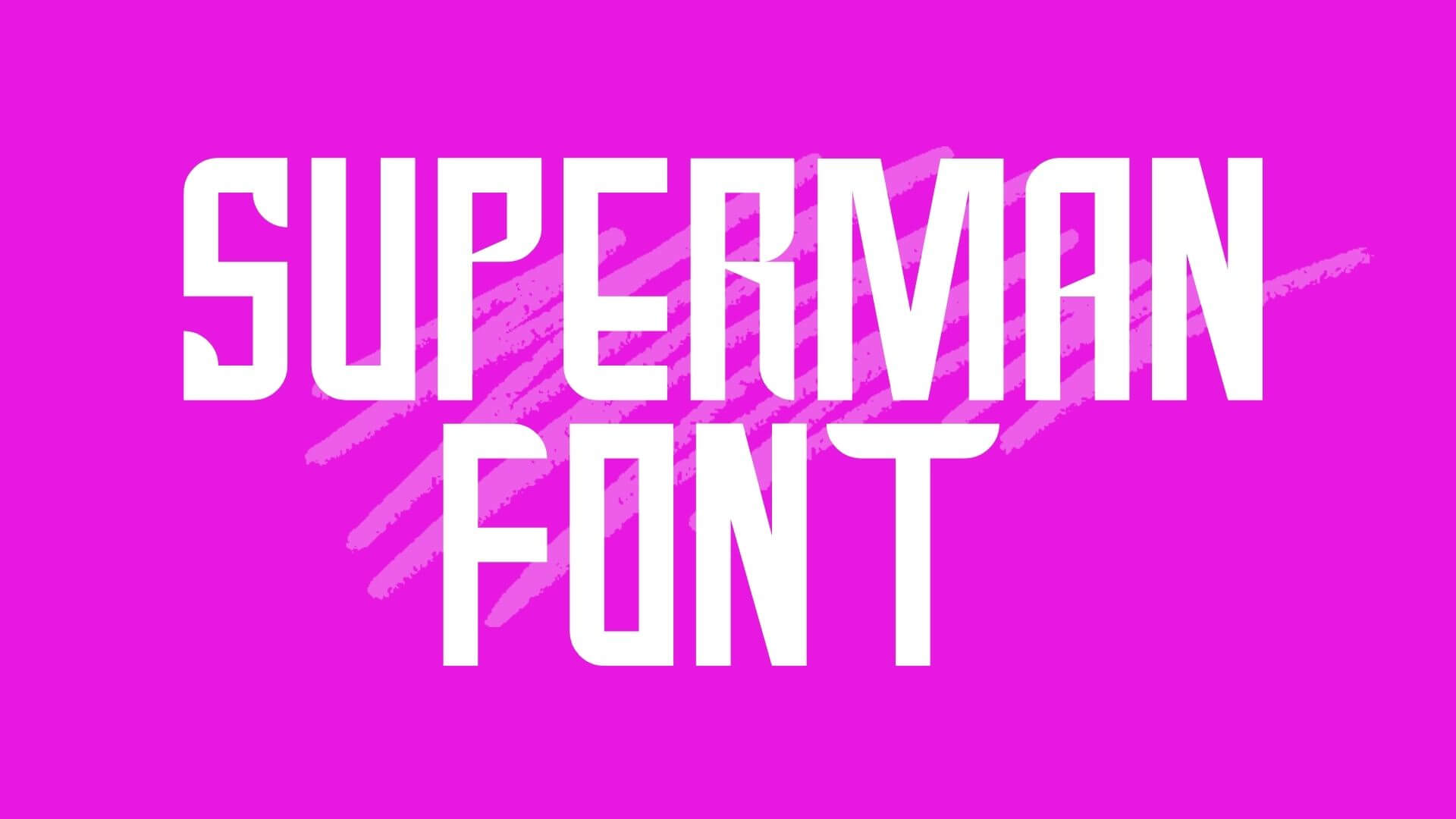
Superman Font Family
Superman Font Family is a comic and modern display typeface family that was designed by a great type designer Morris Fuller Benton. This font has been inspired by the custom 3D letters used on the poster of the famous comic book named Superman. Superman is actually is an ongoing comic book series that was published by DC comics. The book is about the fictional hero Superman.
Superman is an ongoing comic book series published by DC Comics. The book features the fictional hero Superman, who is always worn in the red, blue, and yellow costume and with a letter S shield can be seen on his chest. After the tremendous popularity of the superman character, then it has also appeared in many media such as TVs, Movies, and Video games.
NameSuperman Font
DesignerMorris Fuller Benton
StyleDisplay
Is there any alternative font to Superman?
Yes, A few best alternatives to this typeface including Franklin Gothic Heavy and Archivo Font and you can easily use these fonts as you want to use Superman font.
Where You Can Use Superman Font?
You can apply this typeface with the pairing of Arapey font for Comic books, Titles, Posters, Website designs, Logo designs, and so on.
What font used Superman?
This is a fictional and comic book series that got tremendous popularity in the world. The letters on the title of this book are very gorgeous with 3D effects. The lettering of the title of this is very similar to another gorgeous font namely Up Up and Away and the designer of Up Up and Away font is John Roshell.